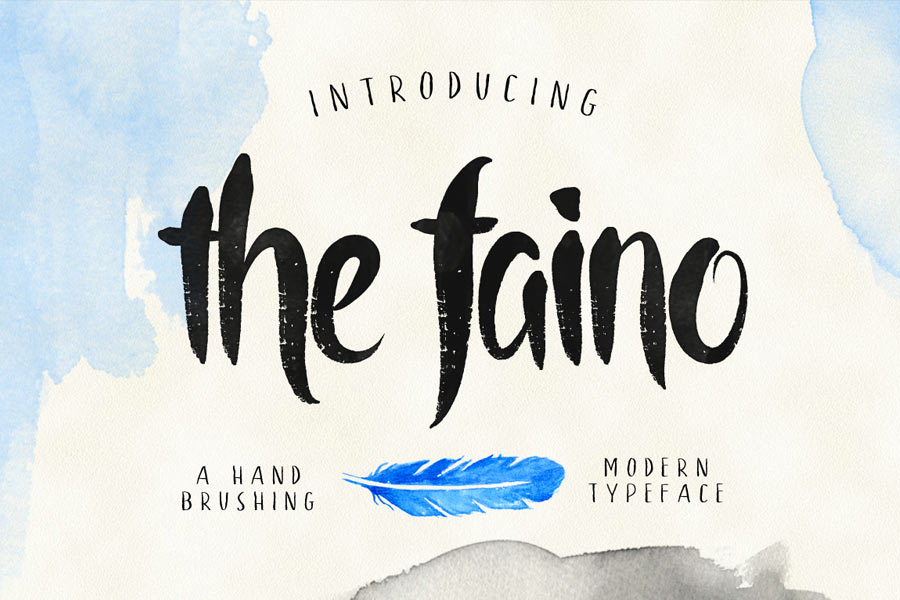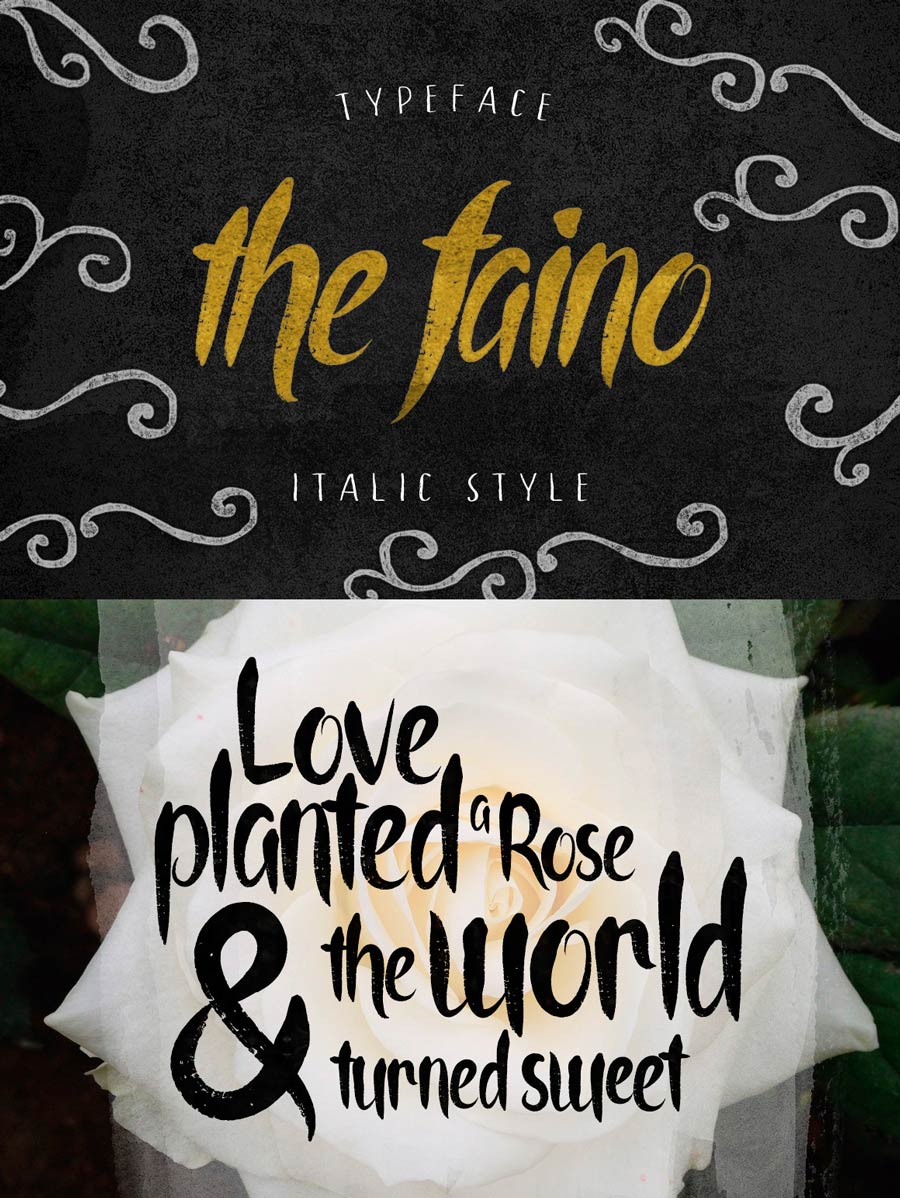
The Faino is a tall brush handwritten font that is free to download for this week only. The characteristics of The Faino font is it has stroke textures, and each characters were usually started and ended with a sharp finish. The Faino comes with regular and italic font styles, and the stroke textures can be seen clearly on big sizes.
- Designer: Alit Design
- Styles: 2